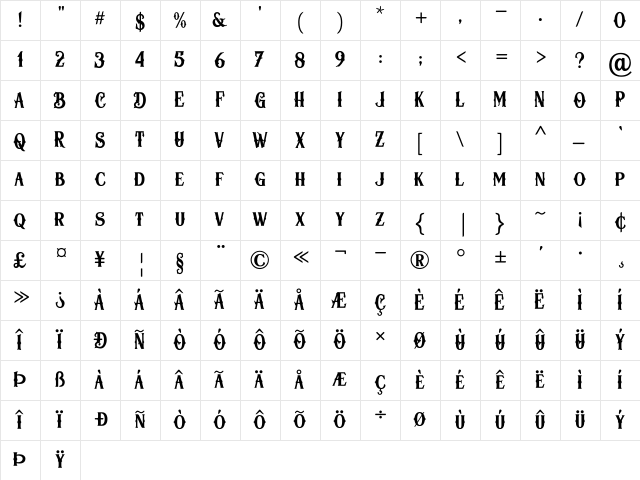
Herosita Regular
Design Context for Herosita Typeface
Herosita is a composed and adaptable typeface that performs quietly and consistently across a wide range of design contexts.